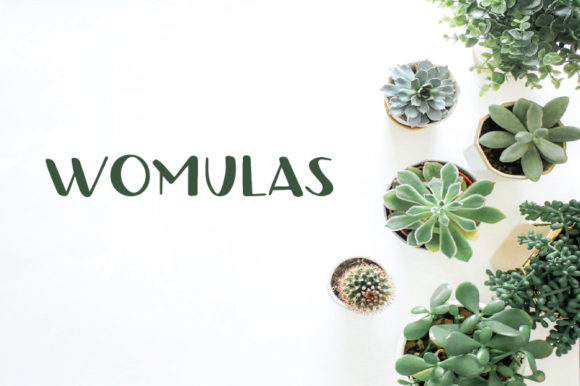
Discover the Versatility of Womulas Font
Introduction — What is Womulas?
Womulas is a fun and quirky display font that adds a unique touch to any design project. If you're looking for a Womulas free download or Womulas font download, you'll find it to be a versatile and eye-catching choice. This font stands out in the Display category with its playful yet sophisticated style, making it perfect for a wide range of creative applications.
Letterforms and Weight
The letterforms in Womulas are carefully crafted to balance playfulness with readability. The weight of the font is well-balanced, providing a strong visual impact without overwhelming the overall design. This makes it an excellent choice for both large and small text sizes.
Spacing and Kerning
The spacing and kerning in Womulas are meticulously designed to ensure that each character sits comfortably next to another. This attention to detail results in a clean and professional look, making it a premium Display font for any project.
Womulas for Logo Design
Womulas is a fantastic choice for logo design. Its unique and memorable style can help your brand stand out and make a lasting impression. Whether you're designing a logo for a new business or rebranding an existing one, Womulas can add a touch of creativity and personality.
Womulas for Branding
When it comes to branding, Womulas offers a distinctive and consistent look. It can be used across various branding materials, from business cards to website headers, ensuring a cohesive and professional appearance. This makes it a professional Fonts font for any branding project.
Womulas for Wedding Invitations
For wedding invitations, Womulas brings a touch of elegance and whimsy. Its playful yet refined style can perfectly capture the joy and celebration of a special day. Whether you're designing a traditional or modern invitation, Womulas can add a unique and personal touch.
Font Pairing & Combinations
When considering Womulas font pairing, it's important to choose complementary fonts that enhance the overall design. A good combination could be pairing Womulas with a clean sans-serif font like Lato or a classic serif font like Times New Roman. What fonts pair well with Womulas often depends on the specific design context, but these combinations generally work well.
Designer Notes & Tips
As a designer, I recommend testing Womulas in black and white to see how it holds up in different contexts. Additionally, check its readability at small sizes and review the spacing to ensure it fits well with other elements in your design. When comparing Womulas vs similar font options, consider the unique qualities of Womulas, such as its playful yet professional style, to make the best choice for your project.